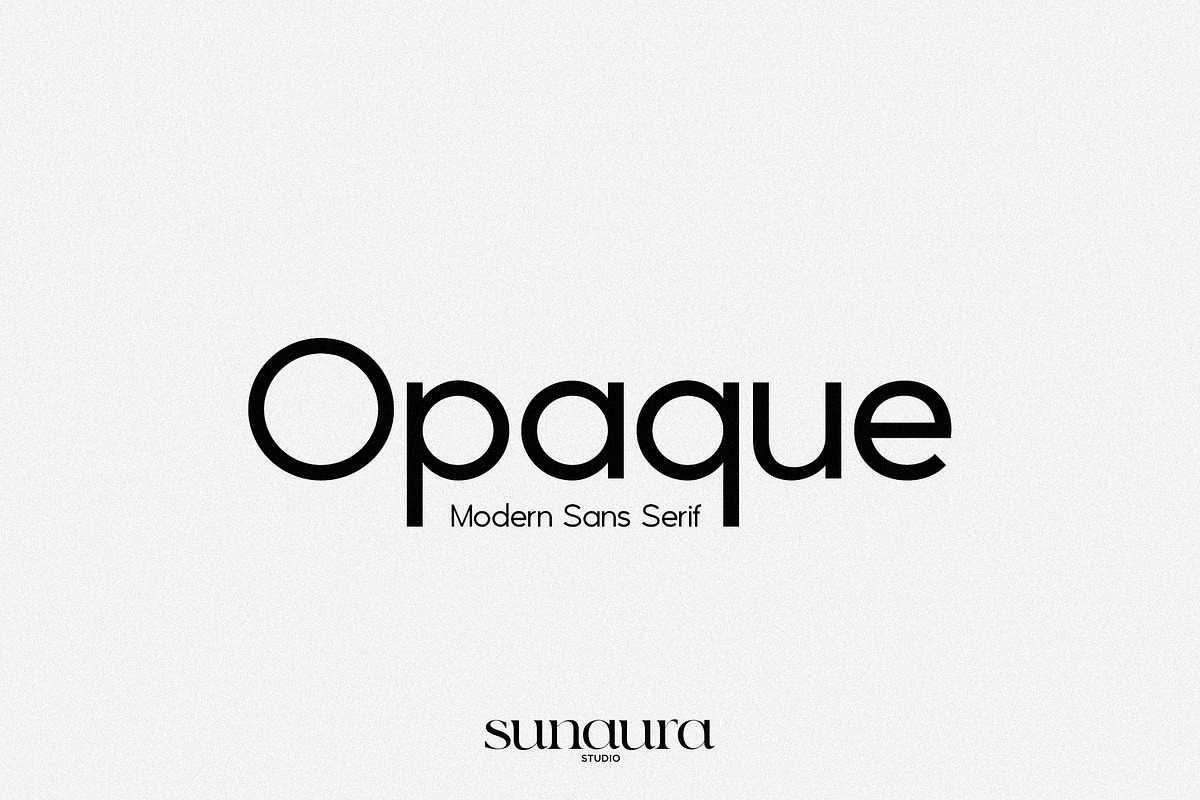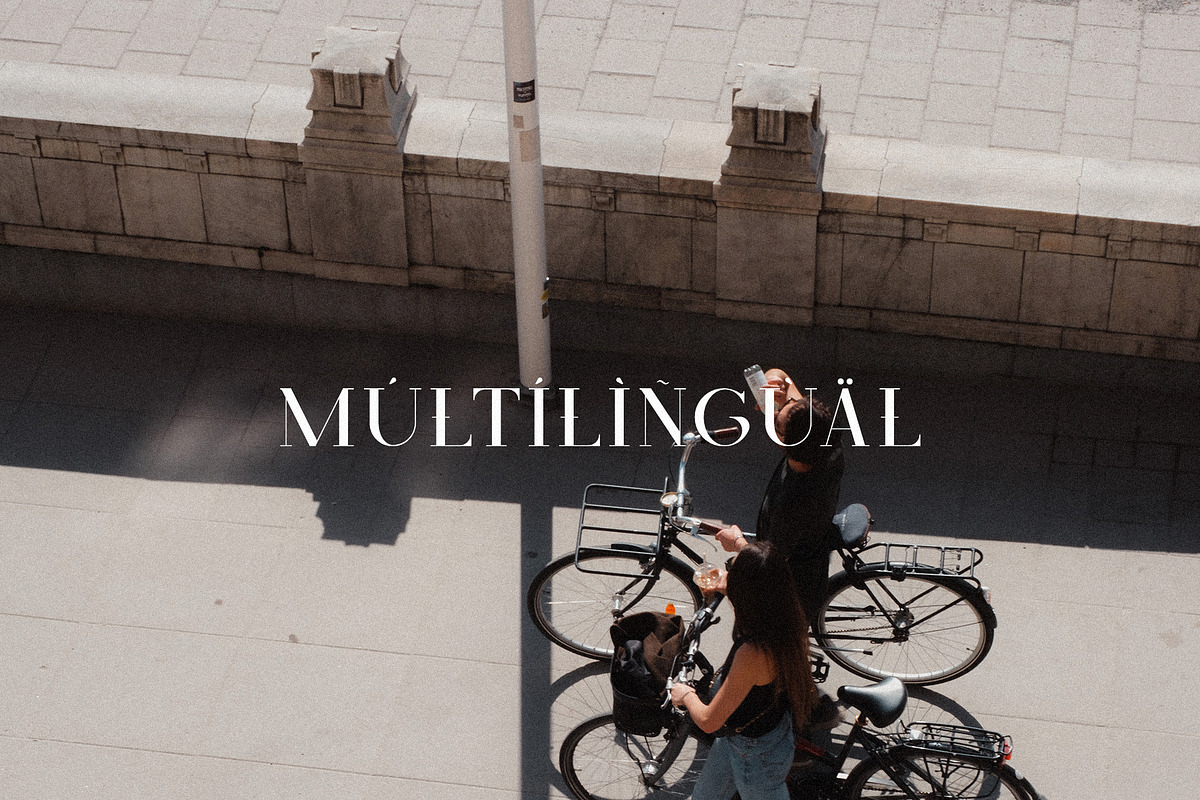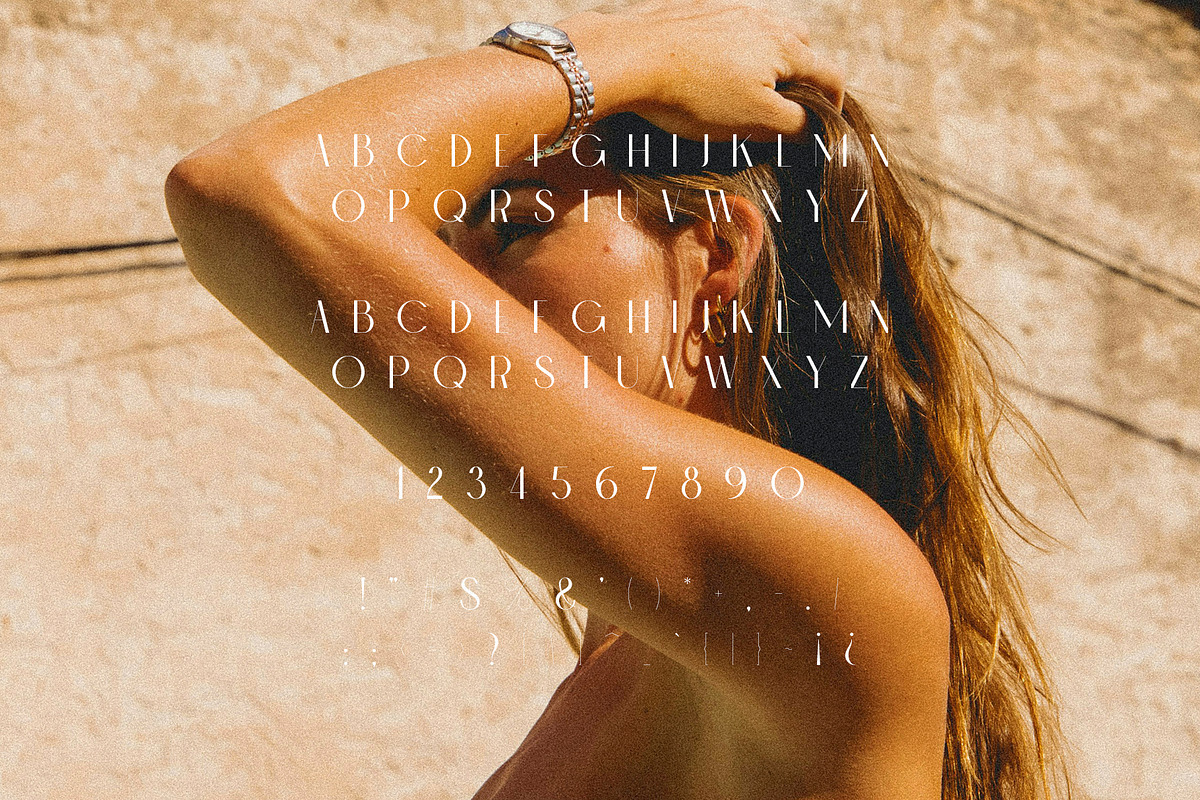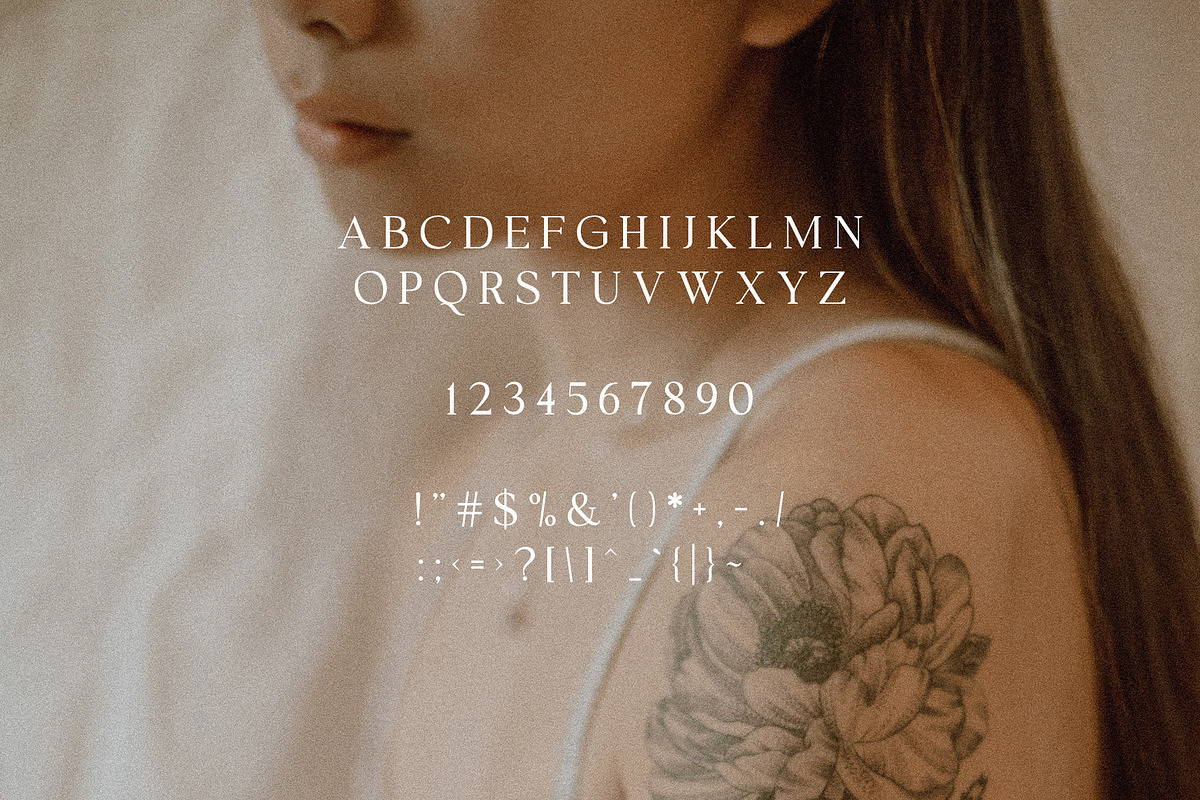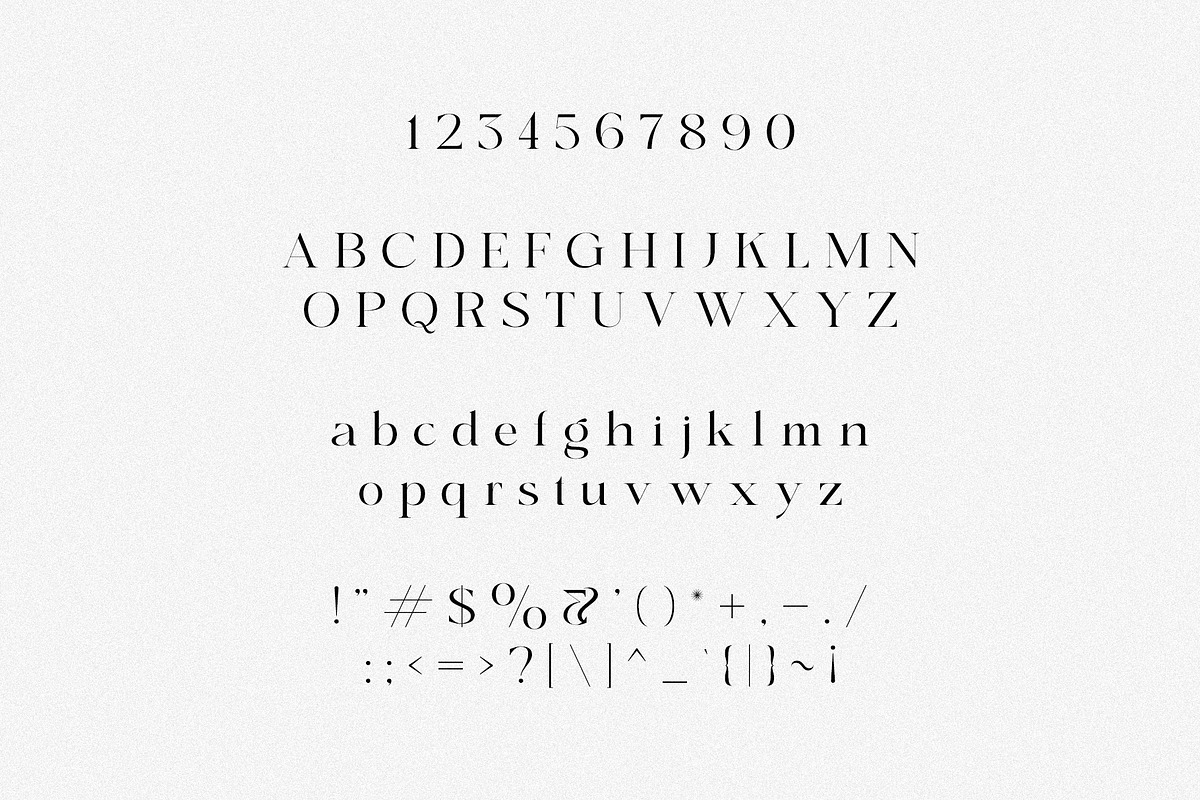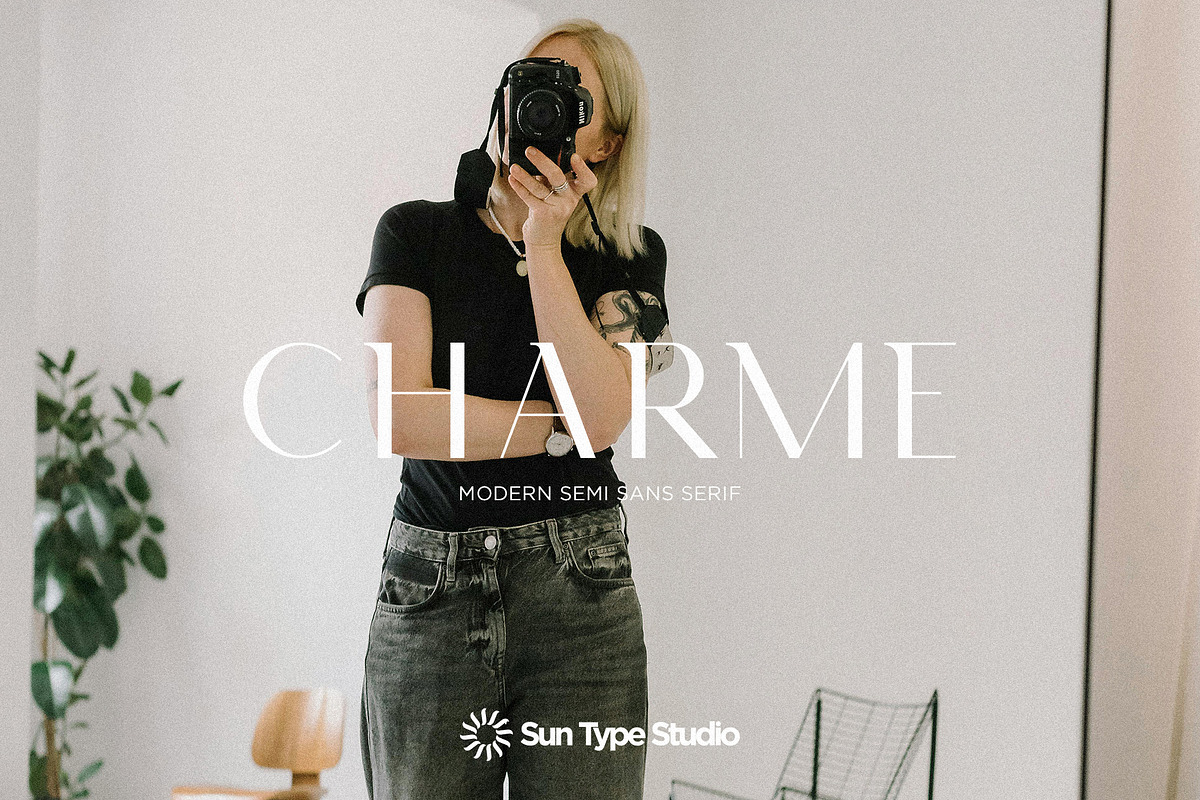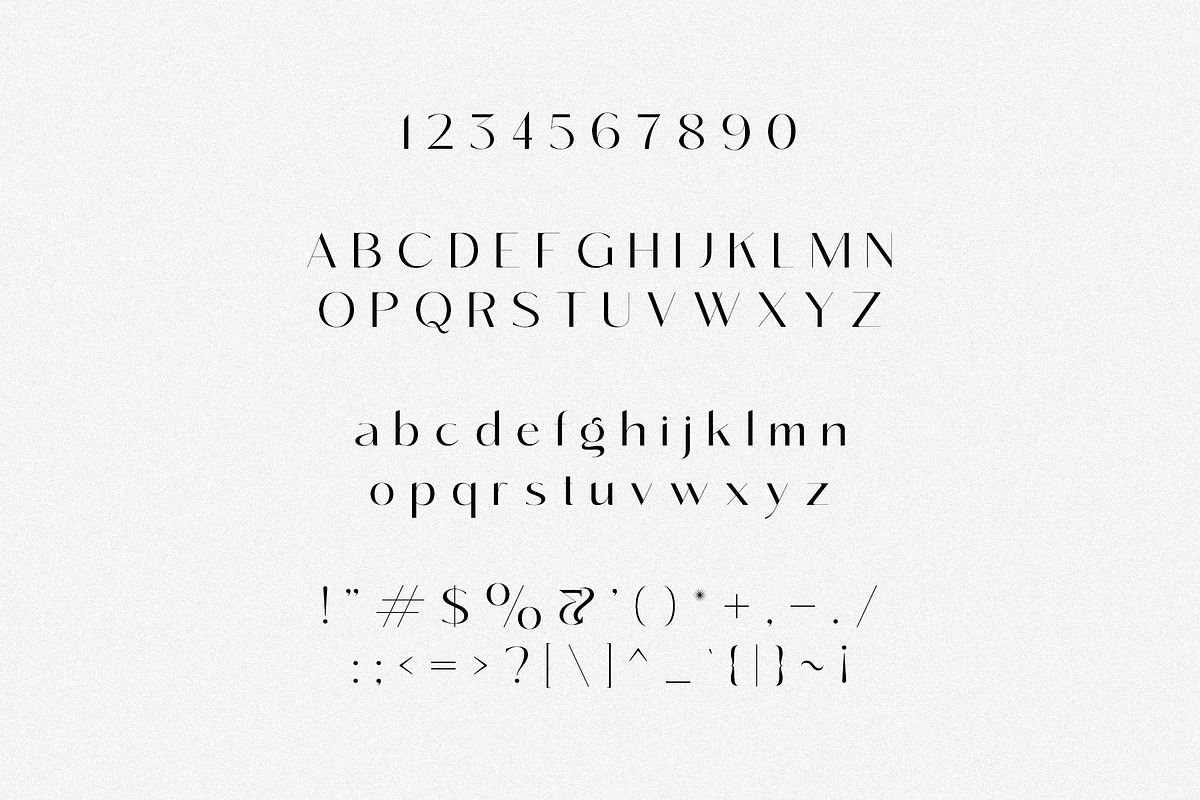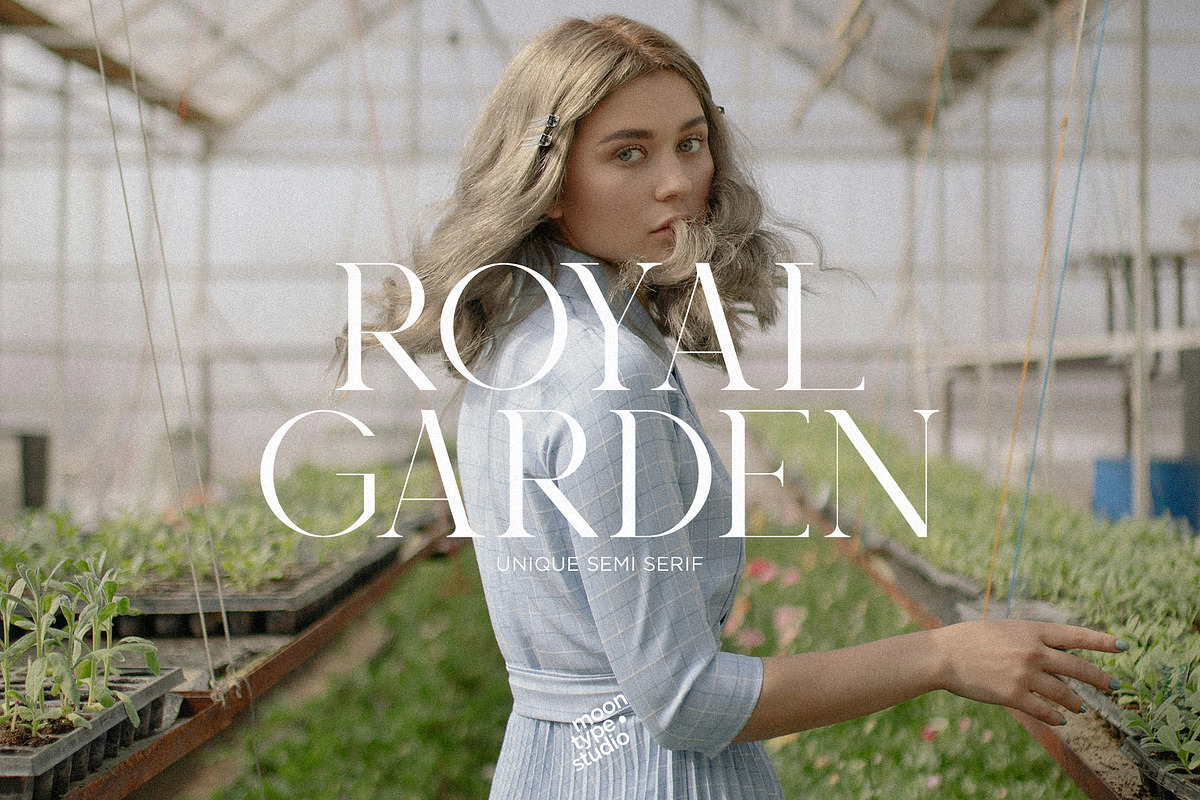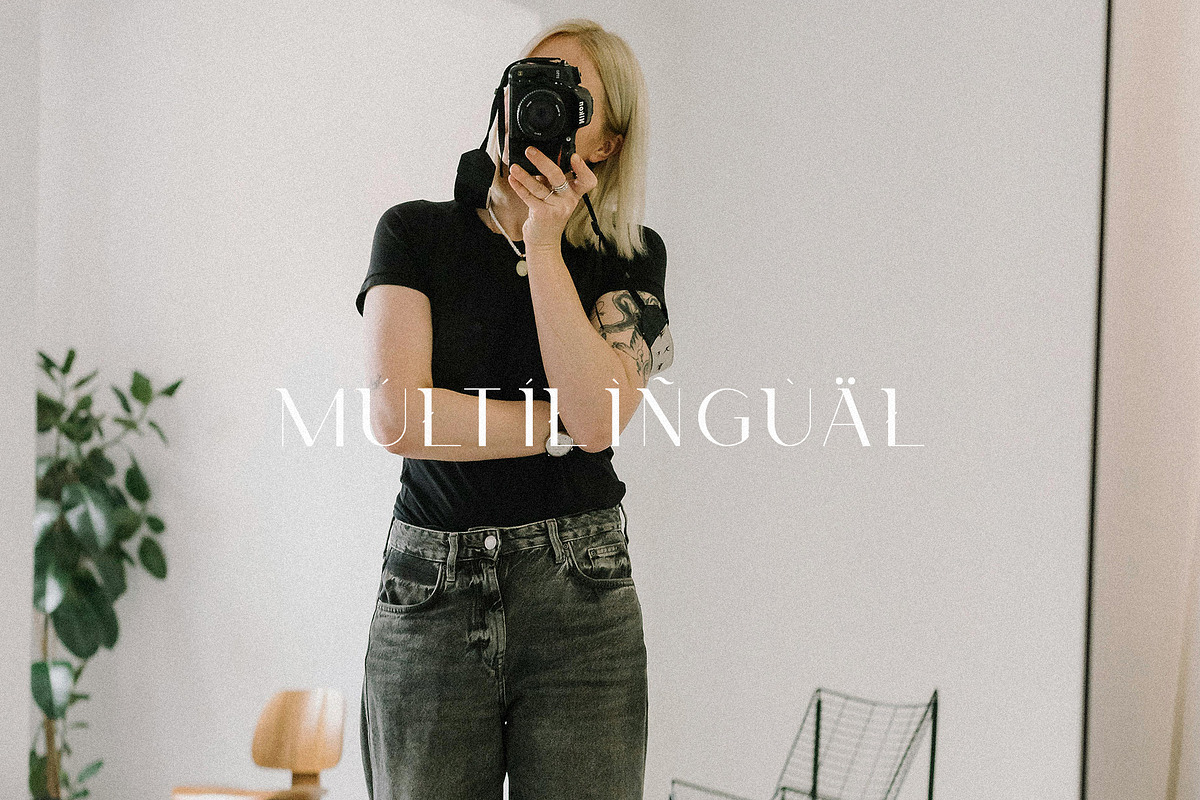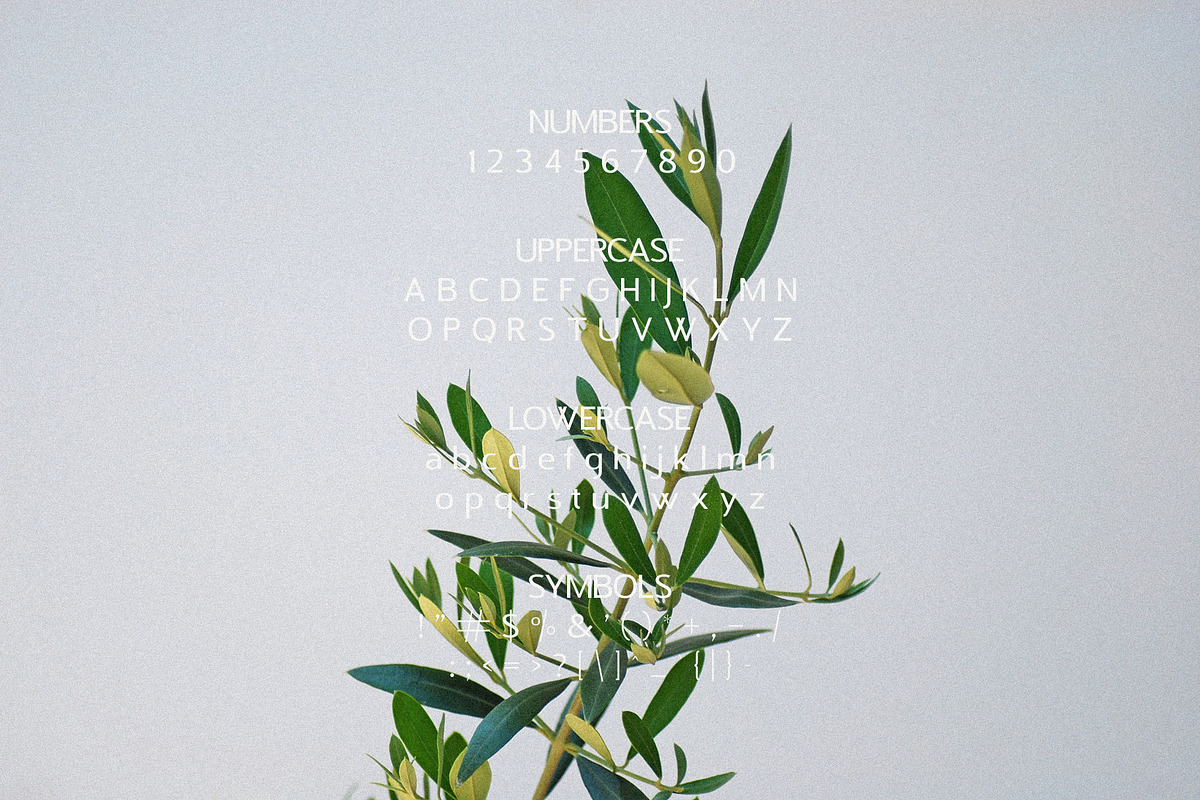
Cyber Font Bundle
The Cyber Font Bundle is a powerhouse collection crafted for creators who crave both innovation and sophistication in their typography. Bringing together the finest elements of sleek, modern design, this bundle offers a dynamic mix of razor-sharp sans-serif fonts that deliver a clean, futuristic aesthetic, paired beautifully with elegant serif fonts that add a layer of refinement and luxury.
Perfect for a wide range of creative work—whether you're building a cutting-edge digital brand, designing immersive magazine layouts, or developing high-fashion visuals—this bundle provides the ideal balance between bold, eye-catching style and timeless elegance. Each font is thoughtfully designed to enhance readability while making a striking visual impact, ensuring your projects stand out with confidence and class.
From minimalist tech-inspired designs to upscale editorial concepts, the Cyber Font Bundle equips you with a versatile typographic toolkit that elevates every creation with clarity, style, and sophistication.